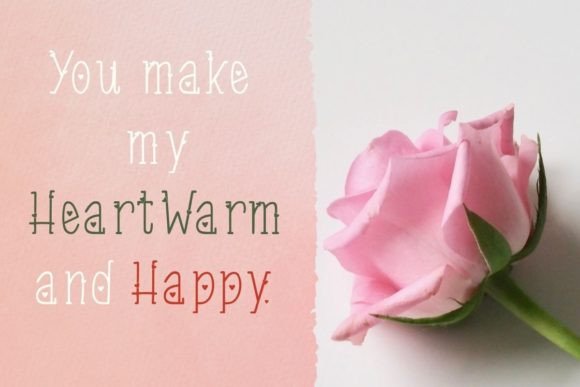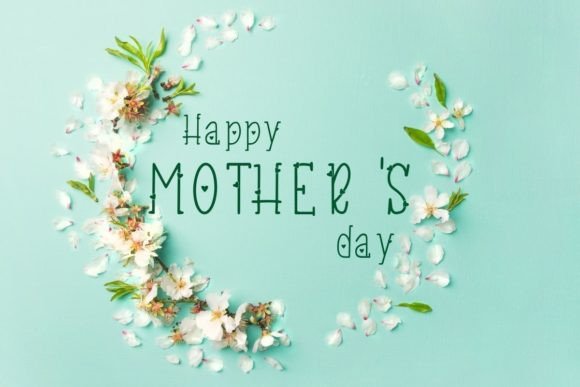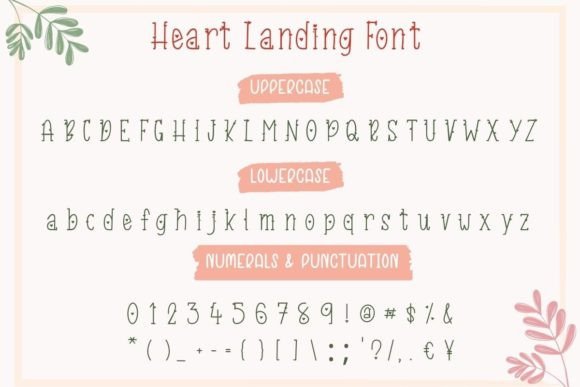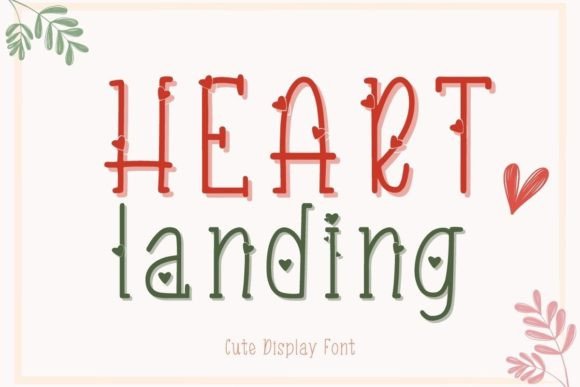
Introducing Heart Landing Font: The Sweetest Handwritten Decorative Font for Your Creative Projects
Are you a designer, crafter, or DIY enthusiast looking for a font that can add a touch of sweetness and love to your creative projects? Look no further than Heart Landing Font! This beautifully designed handwritten decorative font is perfect for anyone who wants to bring a little extra joy and personality to their work.
What Makes Heart Landing Font So Special?
Heart Landing Font is a masterfully designed font that is sure to become a true favorite among designers and crafters. Its lovely and sweet handwritten style is perfect for a wide range of creative projects, from handmade cards and invitations to branding and advertising materials. With its unique and charming character, Heart Landing Font has the potential to bring each of your creative ideas to the highest level!
Key Features of Heart Landing Font
• Lovely Handwritten Style: Heart Landing Font features a beautiful, handwritten style that is sure to add a touch of warmth and personality to your projects.
• Decorative and Versatile: This font is perfect for a wide range of creative projects, from decorative cards and invitations to branding and advertising materials.
• Easily Readable: Despite its decorative nature, Heart Landing Font is still easily readable, making it perfect for use in both digital and print materials.
• Unique and Charming: With its unique and charming character, Heart Landing Font is sure to help your projects stand out from the crowd.
Heart Landing Font is perfect for designers and crafters who want to add a little extra love and personality to their projects. Whether you’re creating handmade cards, invitations, or other decorative items, this font is sure to be a great addition to your design toolkit. Its versatility and charm make it perfect for use in a wide range of creative projects, from:
• Handmade cards and invitations
• Branding and advertising materials
• Decorative labels and tags
• DIY crafts and projects
• And more!
Tips and Tricks for Getting the Most Out of Heart Landing Font
• Experiment with Different Sizes and Colors: Heart Landing Font looks great in a variety of sizes and colors, so don’t be afraid to experiment and find the perfect look for your project.
• Pair it with Other Fonts: Heart Landing Font pairs well with a variety of other fonts, so try pairing it with some of your other favorite fonts to create a unique and interesting look.
• Use it for Headings and Titles: Heart Landing Font is perfect for use in headings and titles, where its decorative nature can really shine.
In conclusion, Heart Landing Font is a lovely and sweet handwritten decorative font that is perfect for designers, crafters, and DIY enthusiasts. With its unique and charming character, versatility, and ease of use, it’s sure to become a true favorite among creative types. So why wait? Download Heart Landing Font today and start bringing a little extra love and personality to your creative projects!